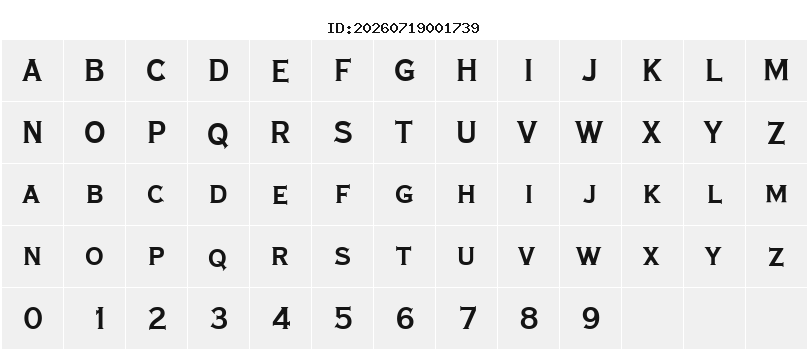
CopperplateGothicCond Preview
About CopperplateGothicCond.ttf
CopperplateGothicCond.ttf is a modern, elegant sans-serif font designed for ultimate readability and visual harmony. Perfect for branding, headlines, web design, and print materials.